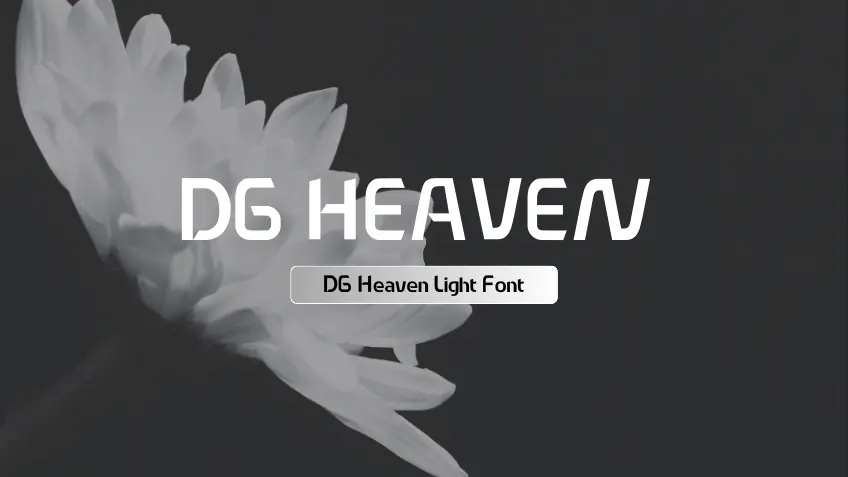
DG Heaven Light
DG Heaven Light Font
The font DG Heaven Light, designed by Hossam El Deen Ahmed, falls under the Display, Sans Serif, Script category & DG Heaven font family. Its smooth, flowing letterforms make it a versatile choice for projects that require both elegance and readability. DG Heaven is particularly well-suited for Branding, Web Design, Corporate, Headlines, Website, Magazine, Identity, Formal, Arabic and Arabic Script. With its balance of simplicity and decorative appeal, this font brings a polished touch to both personal and professional designs.